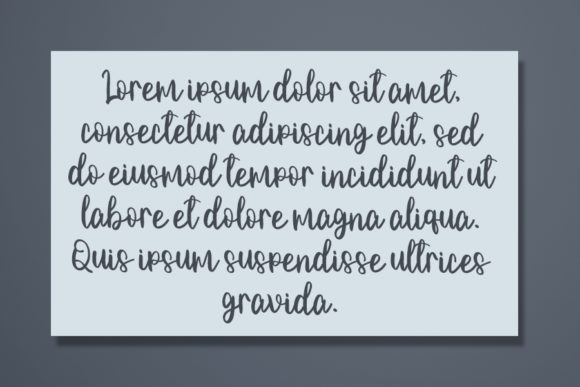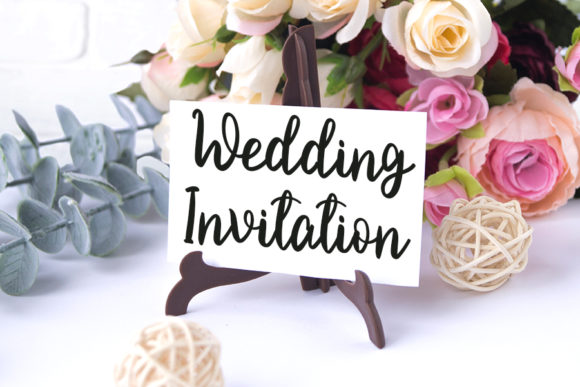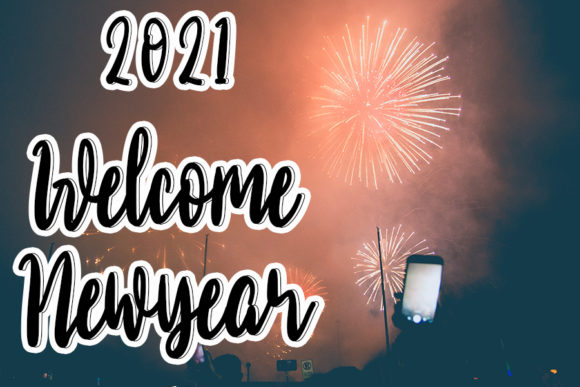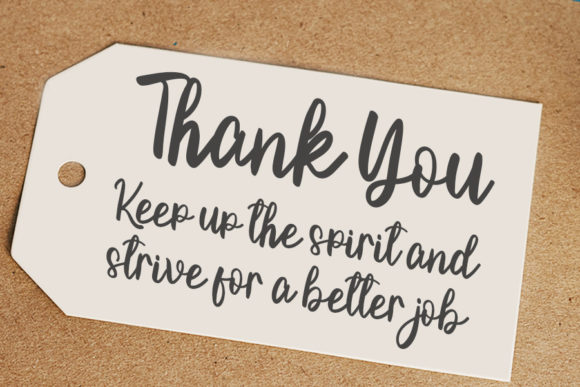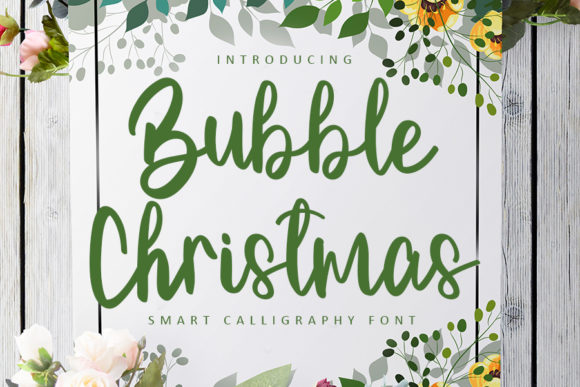
Bubble Christmas Font: The Perfect Choice for Your Holiday Designs
Are you looking for a font that captures the essence of the holiday season? Do you want to add a touch of romance and sweetness to your designs? Look no further than the Bubble Christmas Font. This beautiful calligraphy typeface is perfect for creating stunning holiday designs that will leave a lasting impression.
What is Bubble Christmas Font?
Bubble Christmas Font is a romantic and sweet calligraphy typeface that features characters that dance along the baseline. This unique design gives the font a playful and whimsical feel that’s perfect for the holiday season. The font is highly versatile and can be used on a variety of designs, including wedding invitations, thank you cards, weddings, greeting cards, logos, and more.
Key Features of Bubble Christmas Font
- Romantic and Sweet: The Bubble Christmas Font is designed to evoke feelings of love and joy. Its sweet and romantic style makes it perfect for holiday designs that require a personal touch.
- Calligraphy Style: The font features a beautiful calligraphy style that’s perfect for creating elegant and sophisticated designs.
- Characters that Dance: The characters in the Bubble Christmas Font dance along the baseline, giving the font a playful and whimsical feel.
- Highly Versatile: The font can be used on a variety of designs, including wedding invitations, thank you cards, weddings, greeting cards, logos, and more.
Why Choose Bubble Christmas Font?
There are many reasons why you should choose the Bubble Christmas Font for your holiday designs. Here are a few:
- Unique Design: The Bubble Christmas Font features a unique design that’s sure to stand out from the crowd.
- High-Quality: The font is high-quality and features clean and crisp lines that will look great on any design.
Design Ideas Using Bubble Christmas Font
The Bubble Christmas Font is highly versatile and can be used on a variety of designs. Here are a few ideas to get you started:
- Wedding Invitations: Use the Bubble Christmas Font to create beautiful wedding invitations that will set the tone for your special day.
- Holiday Cards: Use the font to create stunning holiday cards that will impress your friends and family.
- Logos: Use the font to create a unique and memorable logo for your business.
- Thank You Cards: Use the font to create beautiful thank you cards that will show your appreciation for your loved ones.